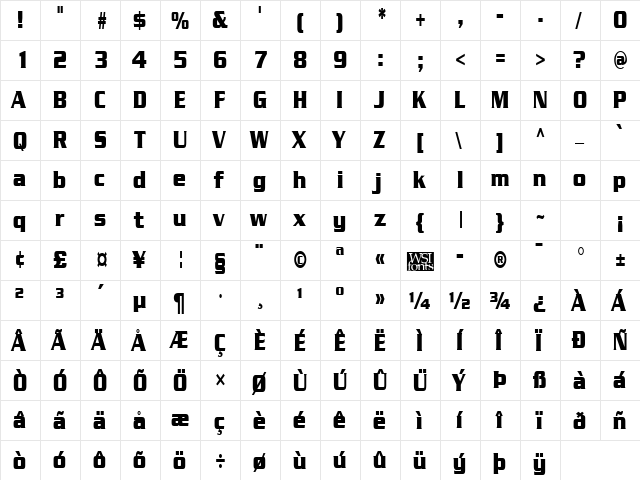
JuliusCondensedBlack Regular
Design Context for JuliusCondensedBlack Typeface
JuliusCondensedBlack is a composed and adaptable typeface that performs quietly and consistently across a wide range of design contexts. The condensed width makes it efficient for tight spaces without sacrificing legibility.